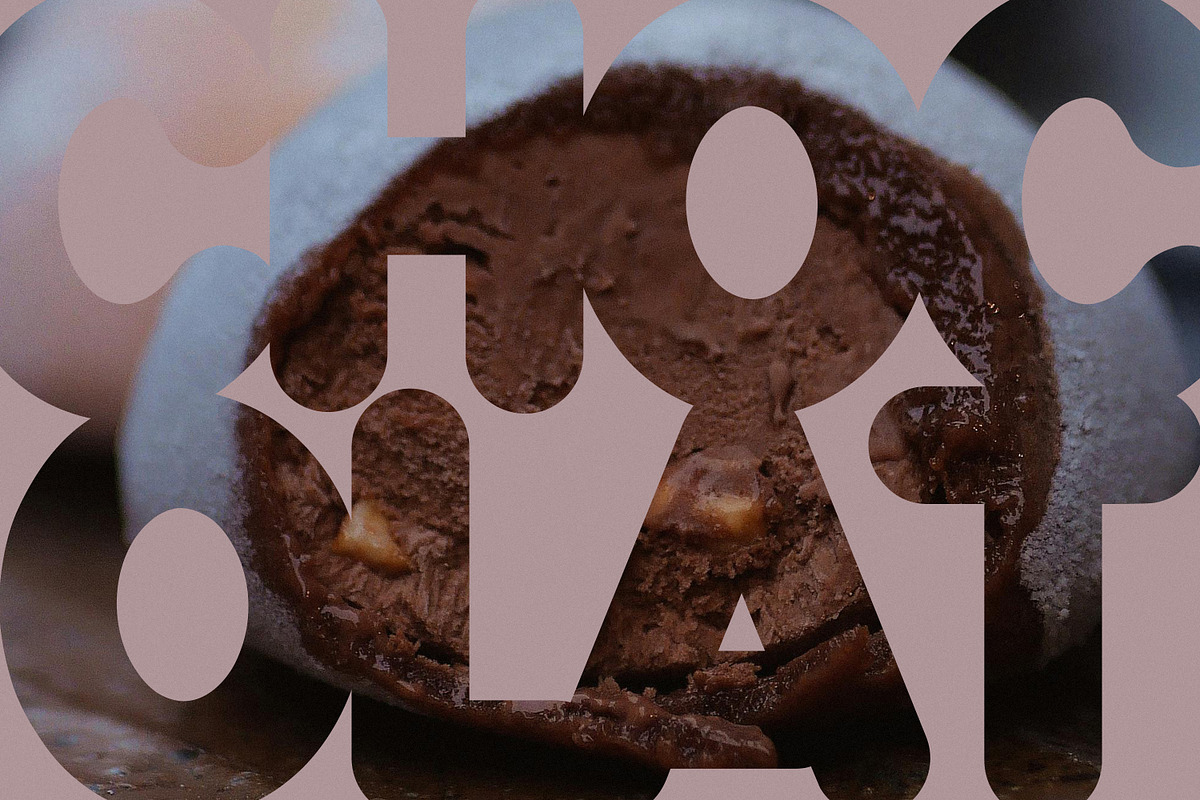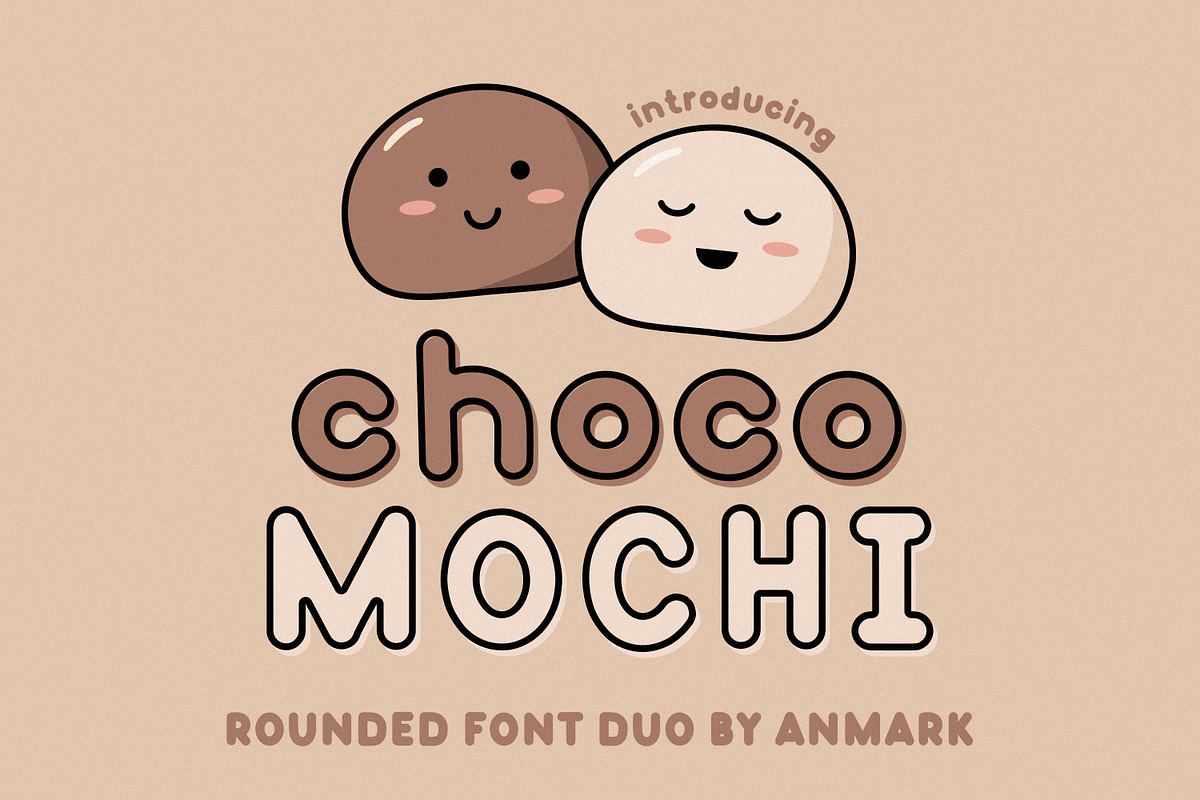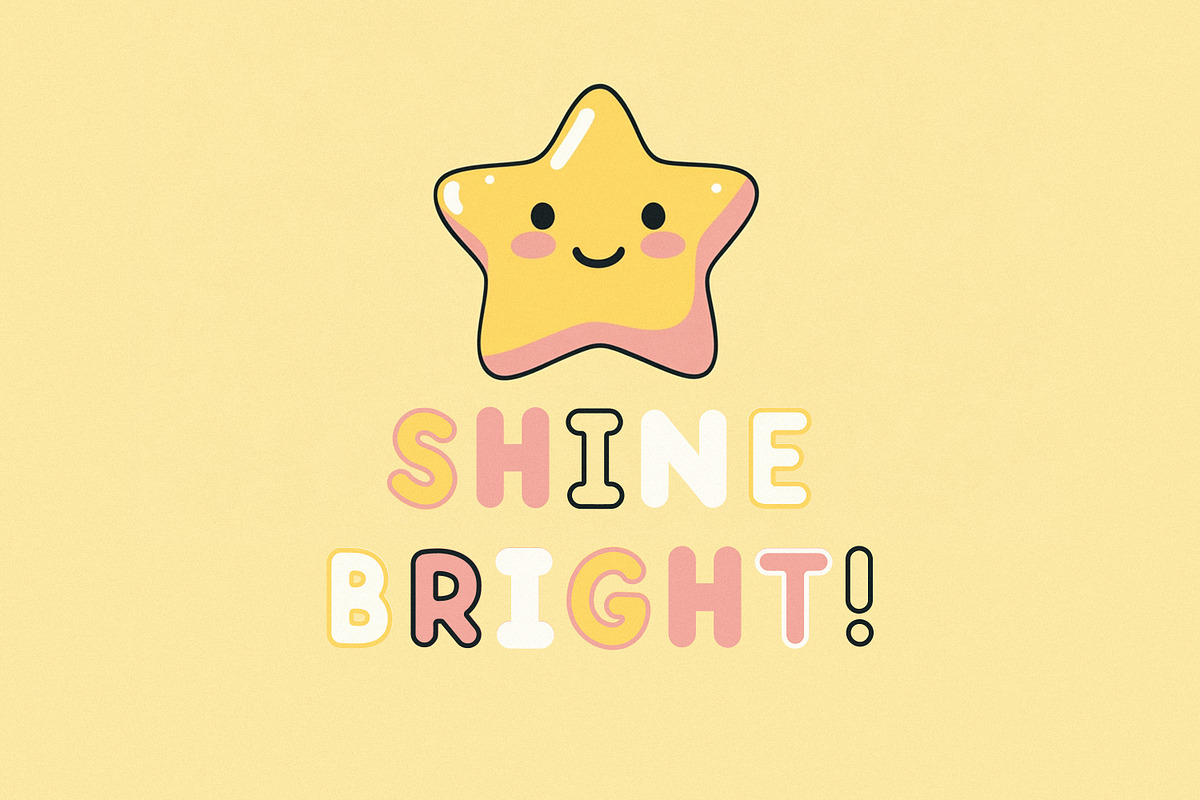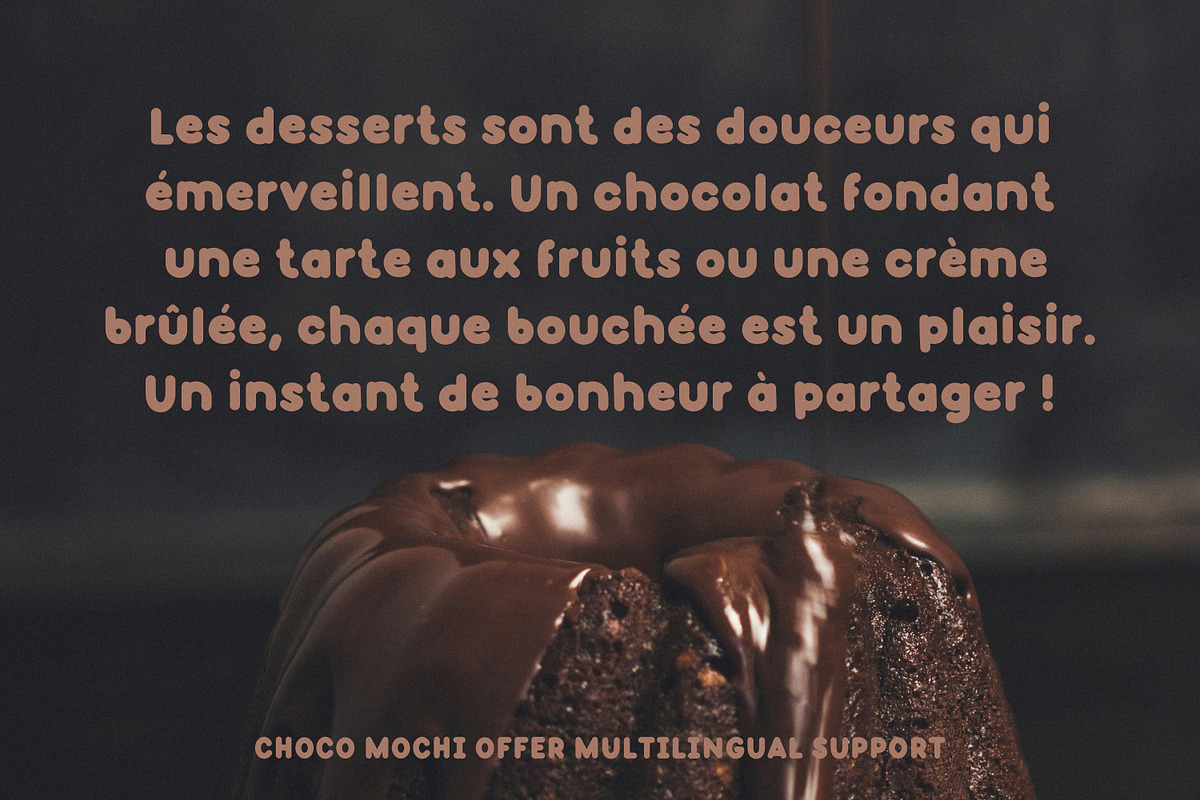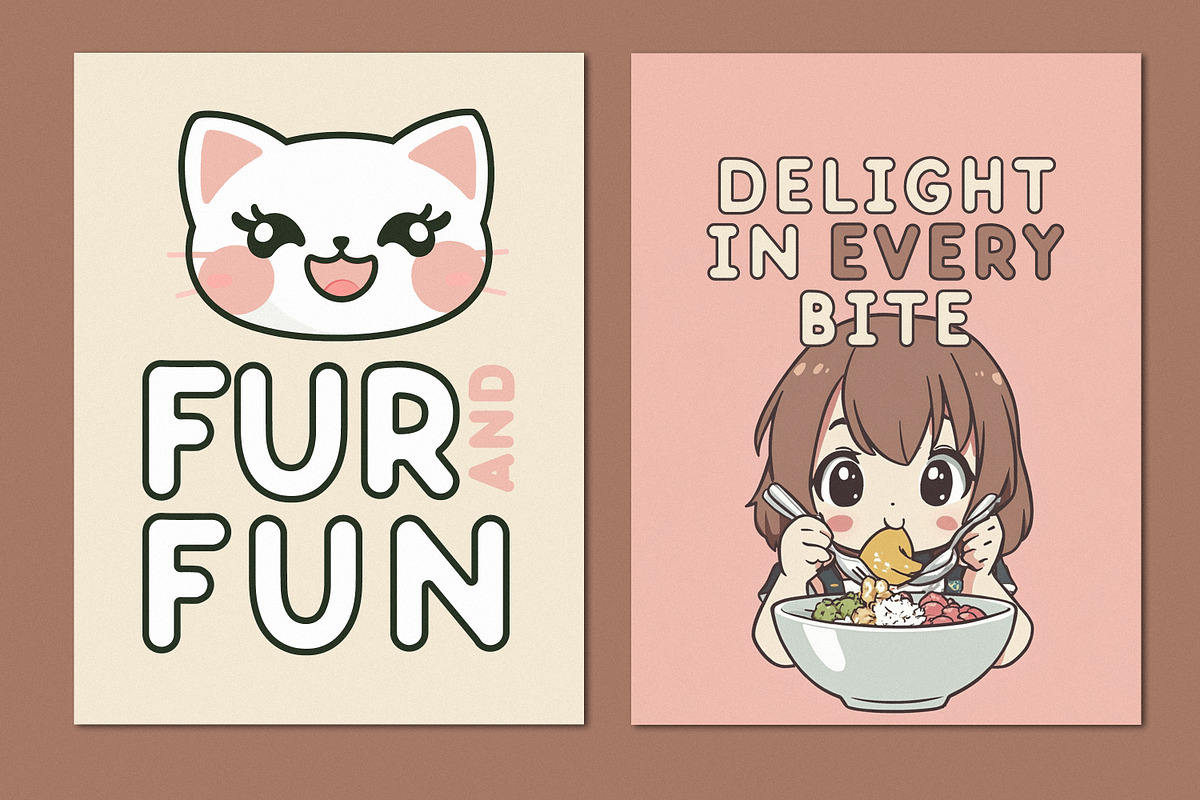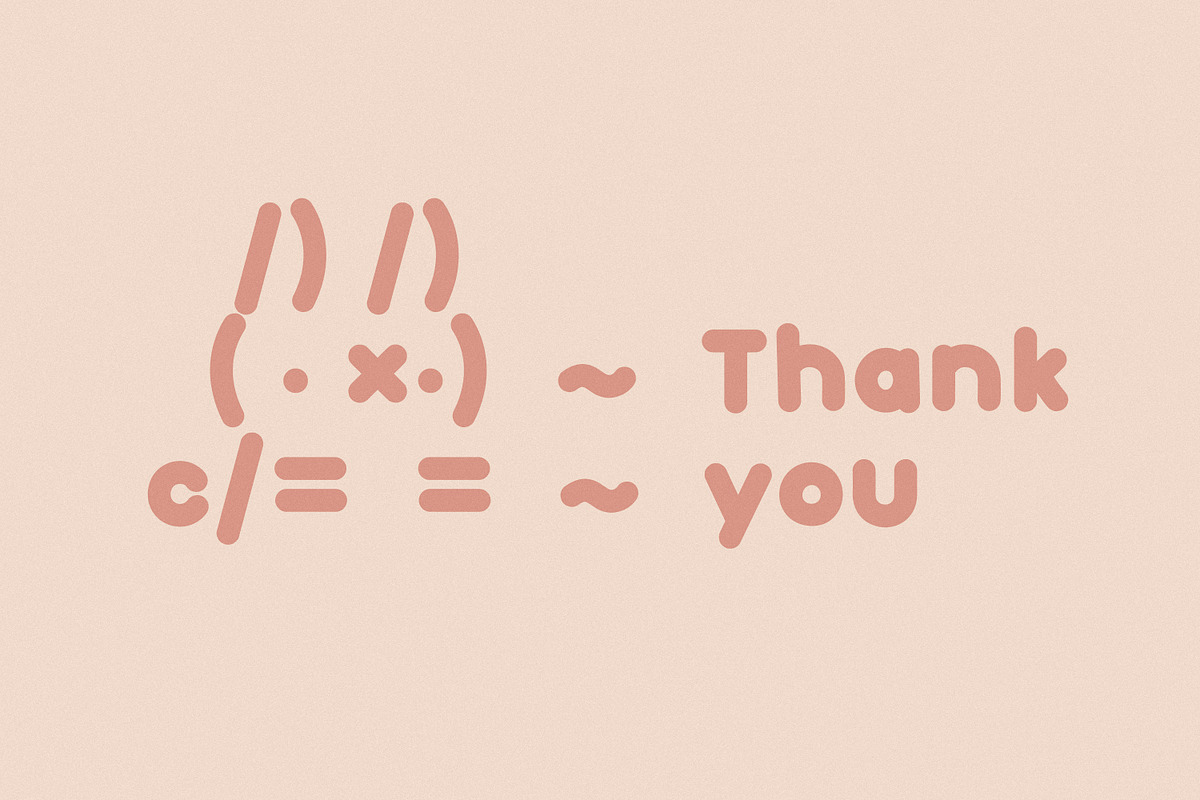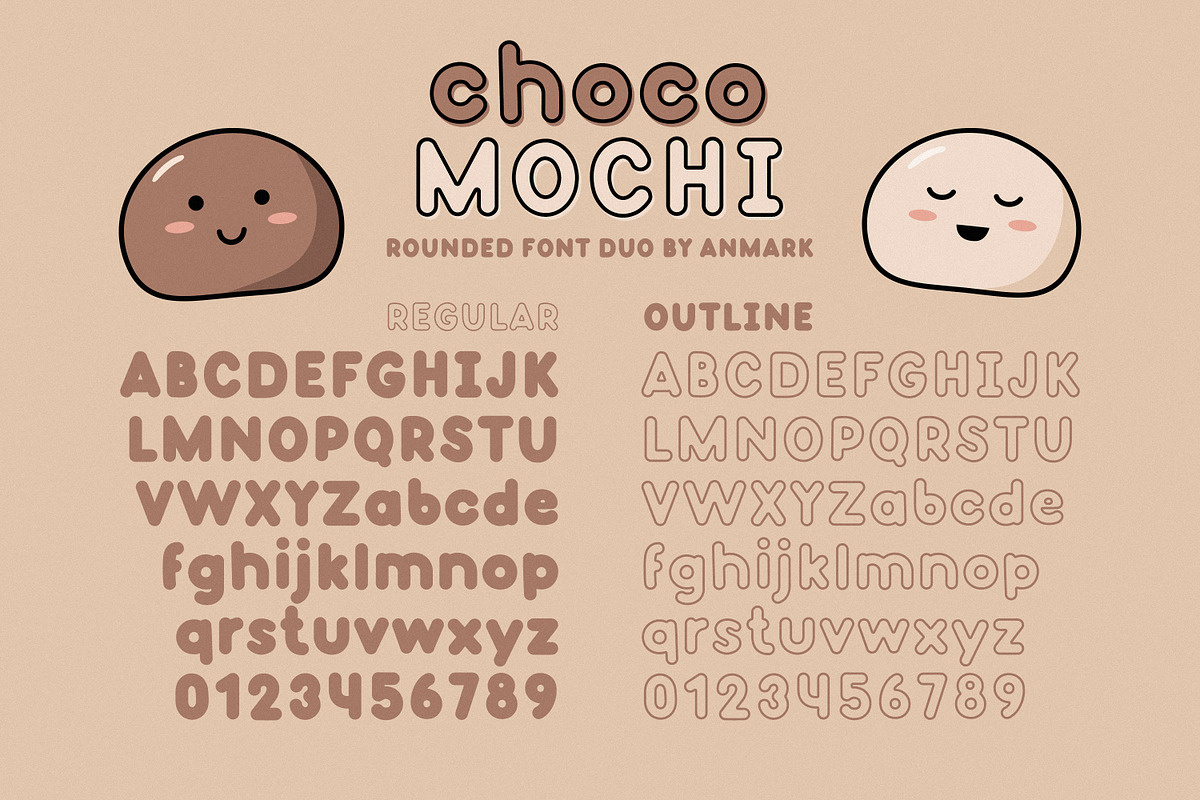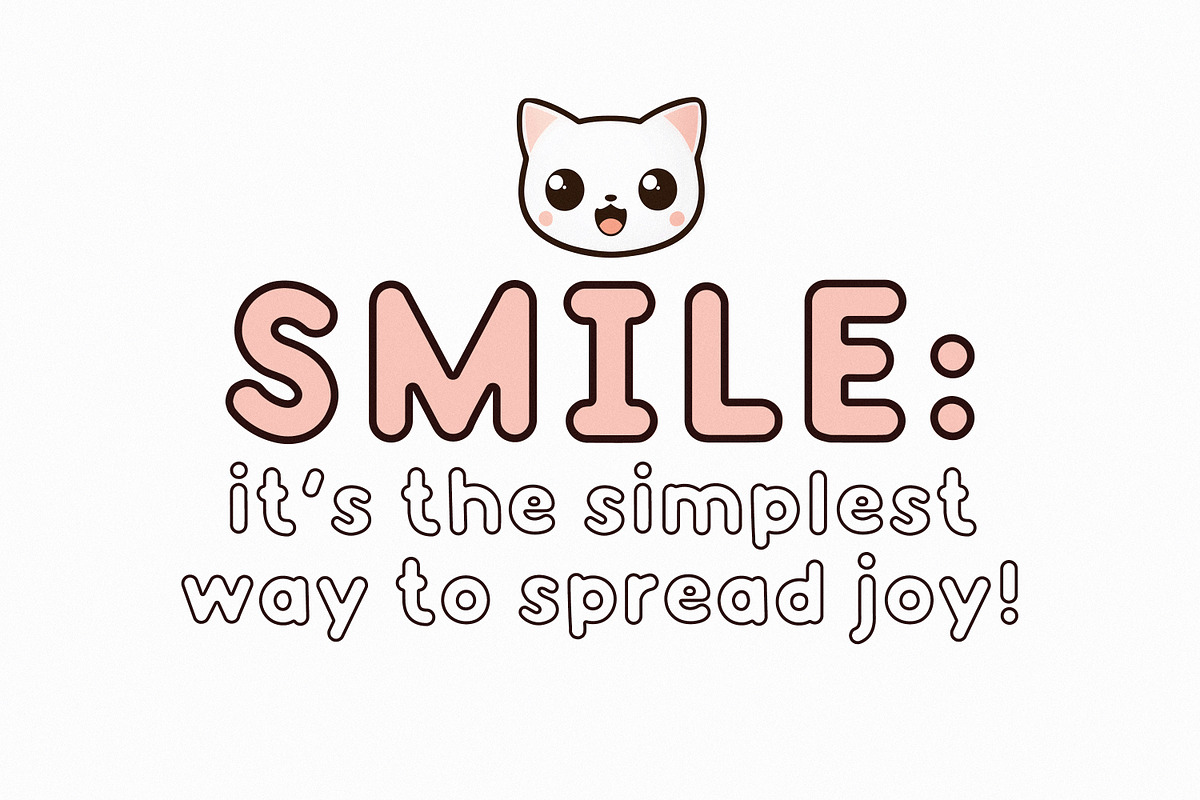
Choco Mochi | Cute Playful font
Introducing Choco Mochi, a kawaii playful rounded font perfect for a variety of creative projects. This font exudes charm and warmth, making it ideal for posters, menus, invitations, and any design that aims to bring a smile. Its rounded edges and playful style add a touch of whimsy, making it suitable for children's products, food branding, and casual events.
Choco Mochi is versatile and easy to read, ensuring your messages stand out with a delightful flair. Use it for social media graphics, packaging, and any playful design that needs a friendly touch.
Choco Mochi has extensive language support, it includes English and European latin-based languages: French, Italian, Spanish, Portuguese, German, Swedish, Norwegian, Danish, Finnish and other.
Embrace the joy of creativity with Choco Mochi!